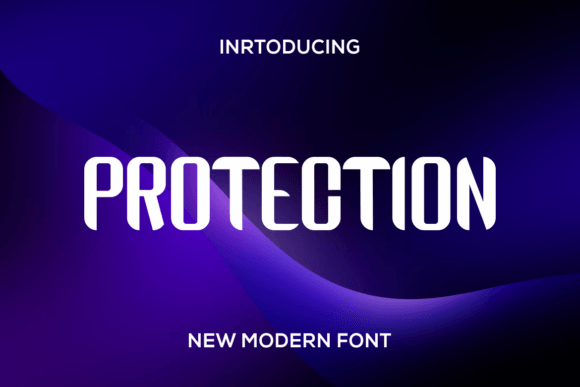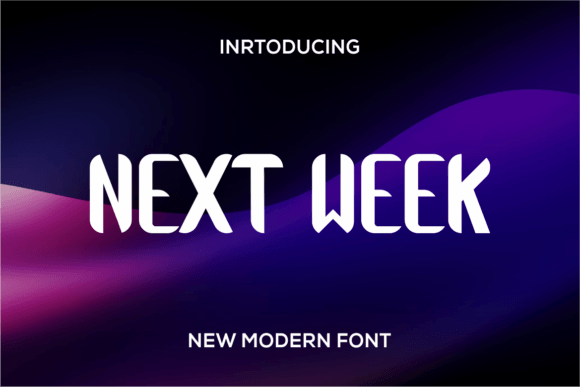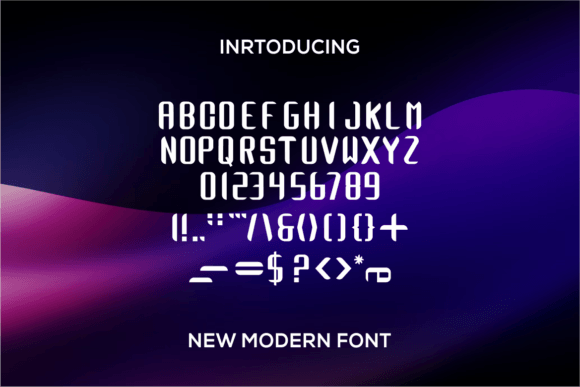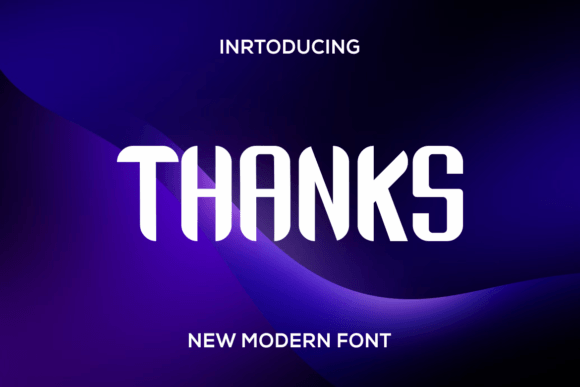
Introducing Apnojix Font: The Modern Display Font You Need
What Makes Apnojix Font Special?
Apnojix Font is a bold and authentic display font, perfect for any branding project, including logos, t-shirt printing, creative products, and more. Its extraordinary versatility makes it suitable for a variety of contexts, from digital platforms to print materials.
An Honest Review of Apnojix Font
- ✨ Unique and Memorable: Apnojix Font has a distinctive style that sets it apart from more traditional fonts. Its modern look is sure to grab attention and leave a lasting impression.
- ✅ Highly Versatile: Whether you’re designing a logo, a poster, or a digital ad, Apnojix Font adapts seamlessly to different contexts and mediums.
- 💡 Ease of Use: The font is easy to read, even in smaller sizes, making it perfect for a wide range of applications.
While Apnojix Font is incredibly versatile, there are a few minor considerations to keep in mind:
- 🤔 Limited Suitability for Body Text: Due to its bold nature, Apnojix Font is best used for headings and titles rather than body text. For longer passages, a more traditional font might be more suitable.
- ⚠️ Glyph Support: While Apnojix Font comes with a range of glyphs and stylistic alternates, there might be some limitations when it comes to very specific characters or special symbols.
The creation of Apnojix Font was inspired by the need for a modern, bold, and authentic display font that could capture the essence of contemporary design. The designer aimed to craft a font that would be both memorable and versatile, suitable for a wide range of applications. The result is a font that is not only visually striking but also highly functional.
Q: What is Apnojix Font best used for?
A: Apnojix Font is ideal for branding projects, logos, t-shirt printing, creative products, and any design that requires a bold and modern look.
Q: Can I use Apnojix Font for body text?
A: While Apnojix Font is highly readable, its bold nature makes it more suitable for headings and titles. For body text, consider using a more traditional font.
Q: Does Apnojix Font support OpenType features?
A: Yes, Apnojix Font comes with a range of OpenType features, including stylistic alternates and glyphs, allowing for greater creative flexibility.
Q: Is Apnojix Font suitable for digital use?
A: Absolutely! Apnojix Font is designed to be versatile and works well in both digital and print applications.